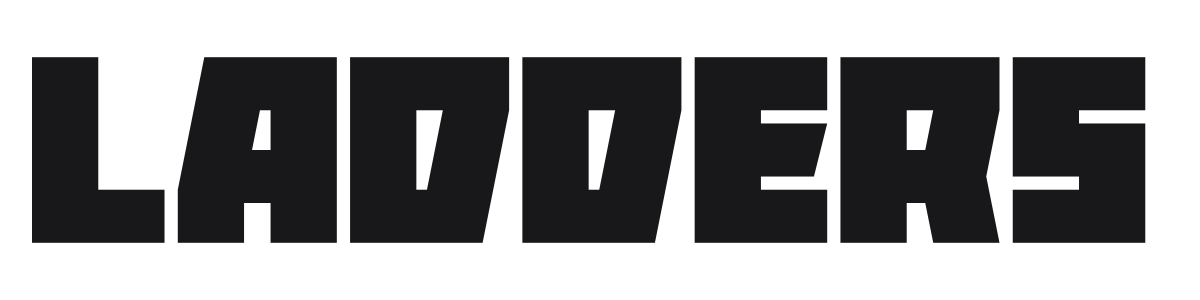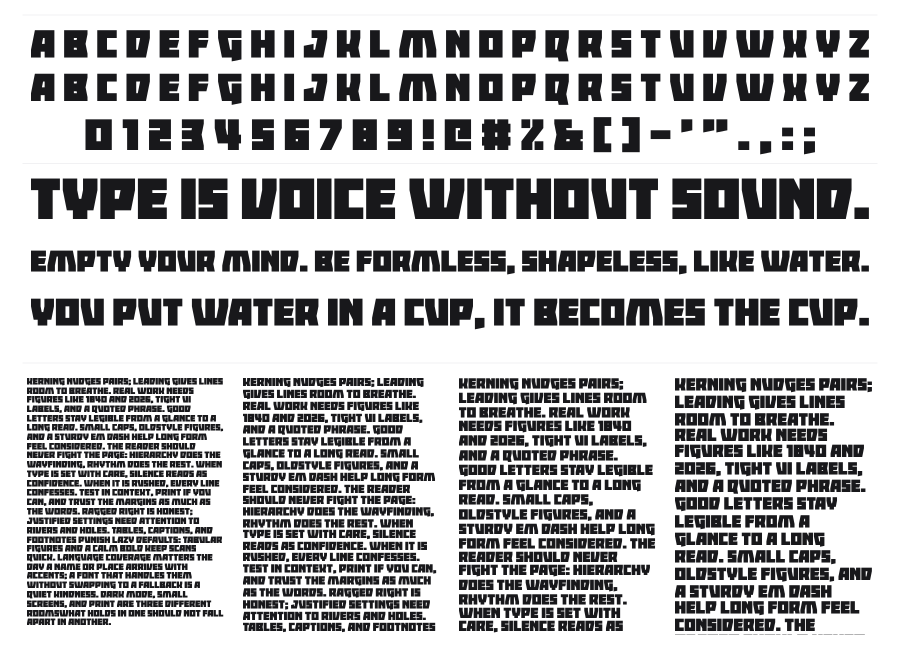
Ladders
Ladders is a heavy condensed display face built from thick rectangular strokes interrupted by sharp diagonal cuts and notched joints. The result is an industrial, almost brutalist energy that recalls 1970s sports typography and action-film title cards. It hits hard at large sizes and suits anything that needs to feel fast, loud, or built tough.